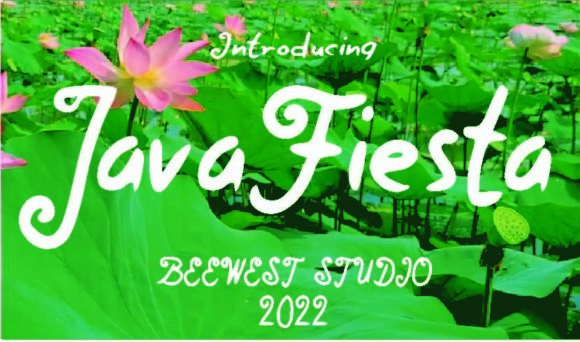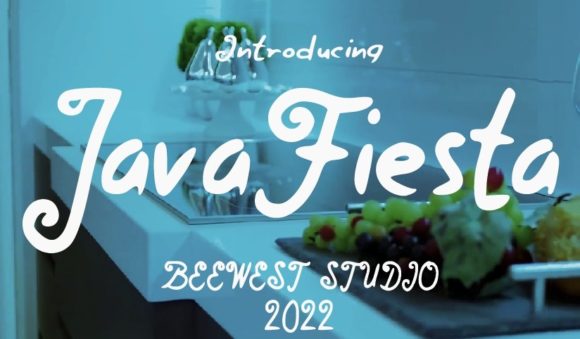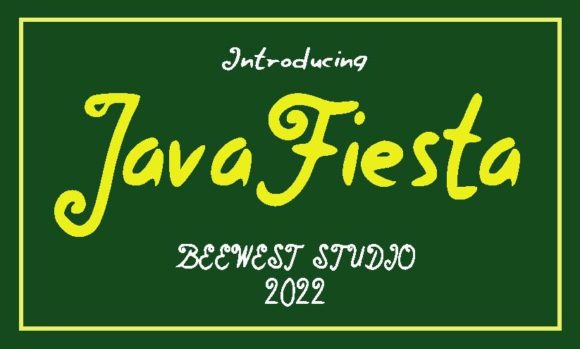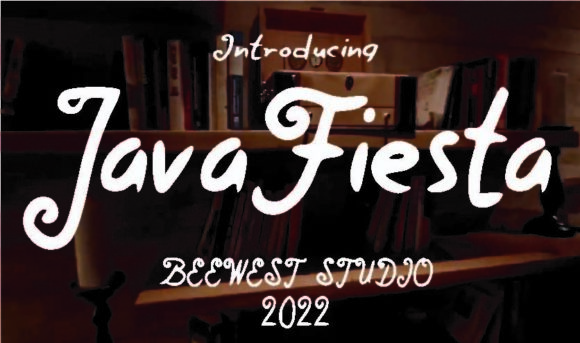
Java Fiesta Font
About Java Fiesta Font
Java Fiesta is a vintage-styled and chic script font that exudes a timeless and stylish charm. Tailor-made for diverse branding projects, this font proves to be a perfect fit for logos, t-shirt printing, creative products, and more. Its distinctive vintage flair ensures that it looks extraordinary across a variety of contexts, adding a touch of sophistication to your designs.
In branding projects, Java Fiesta brings a unique and chic script that enhances logos and visual elements. The vintage styling of the font adds character and authenticity, making it suitable for businesses seeking a classic yet stylish brand identity.
For t-shirt printing, Java Fiesta provides a standout option. Its chic script design adds a touch of retro elegance to apparel, creating visually appealing and fashionable pieces that catch the eye.
In the realm of creative products, Java Fiesta stands out as a font that complements various design themes. Whether applied to packaging, labels, or promotional materials, the vintage and chic script elevates the overall aesthetic.
The timeless charm of Java Fiesta makes it suitable for a range of contexts where a touch of sophistication is desired. Its versatility allows it to adapt seamlessly to different design projects, creating a cohesive and stylish appearance.
Whether used for digital or print applications, Java Fiesta’s vintage styling adds a sense of authenticity and nostalgia. Its chic script creates an aesthetic that resonates with those seeking a classic and fashionable design element.
In summary, Java Fiesta is a vintage-styled and chic script font that brings a timeless charm to various design projects. Whether applied to branding, t-shirt printing, creative products, or other contexts, this font enhances the overall aesthetic with its distinctive and stylish script.